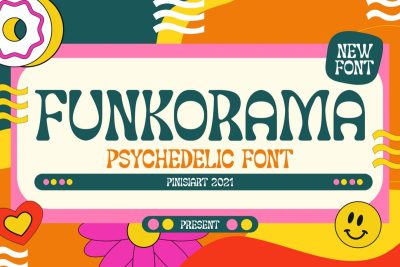
Retro Font Funkorama celebrates vintage design with bold shapes, playful serifs, and a funky vibe inspired by the 1970s and 1980s. This unique typeface blends eye-catching details with whimsical curves, creating a font full of personality and charm. Funkorama isnโt just a retro-inspired font; itโs a creative tool for bringing nostalgia to life.
Each letter in Retro Font Funkorama is crafted to stand out while remaining legible. The high-contrast strokes and bold letterforms ensure your designs grab attention immediately. Whether youโre working on posters, logos, or social media graphics, this typeface guarantees your message makes an impact.
What makes Retro Font Funkorama truly special is its versatility. It includes alternate characters and ligatures, allowing designers to customize their projects effortlessly. These features make Funkorama perfect for creating dynamic and engaging visuals. Whether you want to channel disco-era vibes or add a modern twist to retro designs, Funkorama adapts with ease.
This typeface isnโt just about nostalgiaโitโs timeless. It combines vintage energy with a contemporary edge, ensuring relevance across various projects. Funkoramaโs bold lines and energetic rhythm are excellent for headlines, branding materials, and short phrases. Its quirky yet polished style balances creativity and professionalism perfectly.
Retro Font Funkorama Perfect for
Retro Font Funkorama is essential for anyone looking to make a bold statement. Graphic designers will love it for projects that demand a nostalgic yet modern touch. Itโs perfect for retro-themed posters, lively invitations, and innovative branding efforts. Funkorama adds character and energy to any design.
Social media creators will also find Funkorama invaluable. Its bold style is ideal for creating eye-catching captions, striking quote graphics, or vibrant call-to-action posts. With this font, your content stands out in crowded feeds, helping you connect with audiences who value originality.
Entrepreneurs and small business owners benefit from Funkoramaโs dynamic appeal. It works especially well for lifestyle brands, entertainment ventures, or handmade product lines. Use it on packaging, signage, or marketing materials to establish a memorable and unique brand identity. Whether youโre selling vintage-inspired goods or hosting themed events, Funkorama tells your story visually.
Event organizers and educators can also harness Funkoramaโs engaging style. Use it to design posters, workshop materials, or presentations that leave a lasting impression. Its playful yet professional tone makes it versatile for both personal and commercial projects.
Whether youโre a professional designer or a creative enthusiast, Retro Font Funkorama empowers your projects. Itโs more than just a fontโitโs a gateway to creativity, nostalgia, and fun. Let Funkorama elevate your designs and make every project unforgettable.